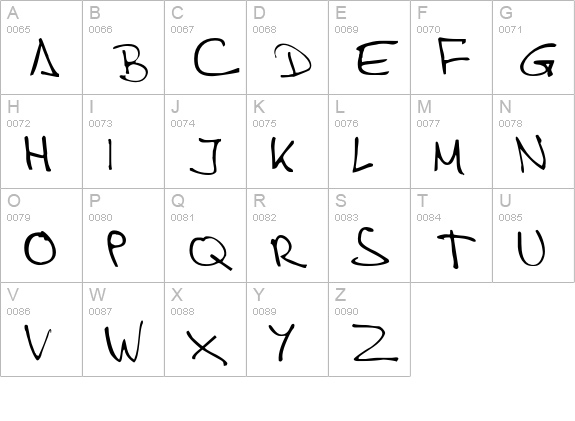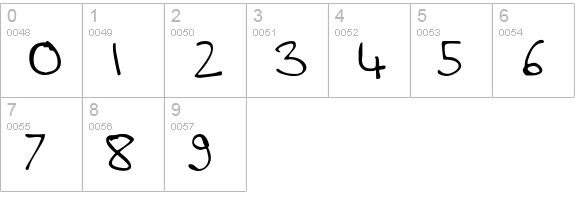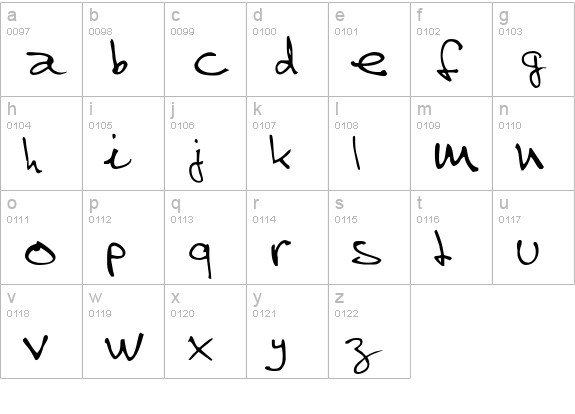
SteveHand Font Details
Introducing SteveHand font, a charming and versatile typeface that brings a touch of elegance and personality to any design project. This handwritten font features a unique blend of classic and modern elements, making it perfect for a wide range of applications, from branding to invitations, packaging, and more. SteveHand font is free to download at FontsMarket.com, making it accessible to designers and creatives looking to add a stylish and distinctive touch to their work. With its graceful curves and stylish letterforms, this font is sure to make a lasting impression on any project. Don't miss out on the opportunity to enhance your designs with the beauty and sophistication of SteveHand font. Download it today and let your creativity shine!